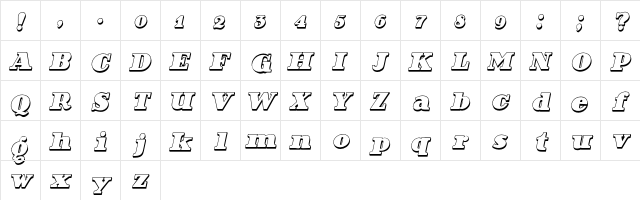
Decorattio 3D Italic
Design Context for Decorattio 3D Typeface
Decorattio 3D takes a measured approach to typography — its balanced proportions and neutral character make it a reliable workhorse for both digital and print work. Its italic angle brings a sense of urgency and motion to the letterforms.